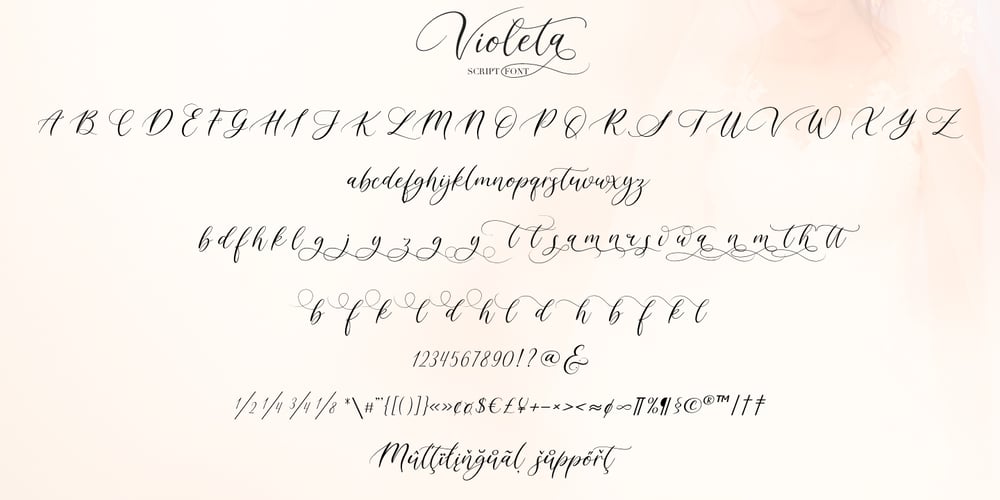
Violeta
Violeta font
Violeta Font Family was designed by Pavel Larin and published by Larin Type Co. Violeta contains 1 styles and family package options. Violeta script- a new modern calligraphy font. This font is ideal for branding and to decorate your projects, perfect for wedding invitations or your blog. You can also create a logo or beautiful frames for your home. Or just use for your small business, book covers, stationery, marketing, magazines and more.